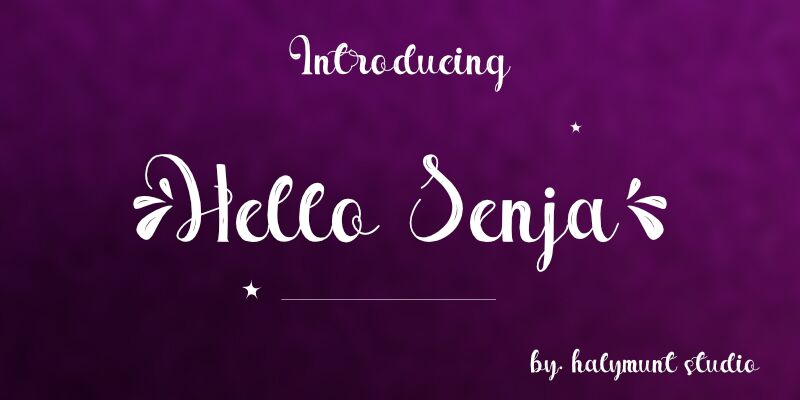
Hello Senja
Hello Senja is a beautiful script calligraphy font designed by Halymunt Studio. It is perfect for creating eye-catching logos, wedding invitations, greeting cards, and other artistic projects.